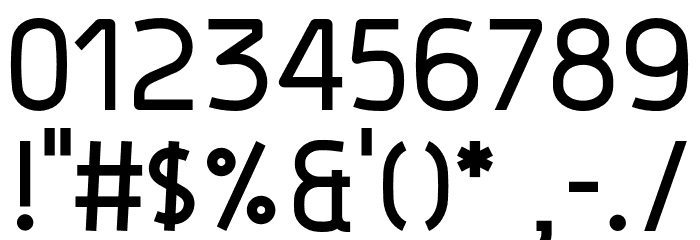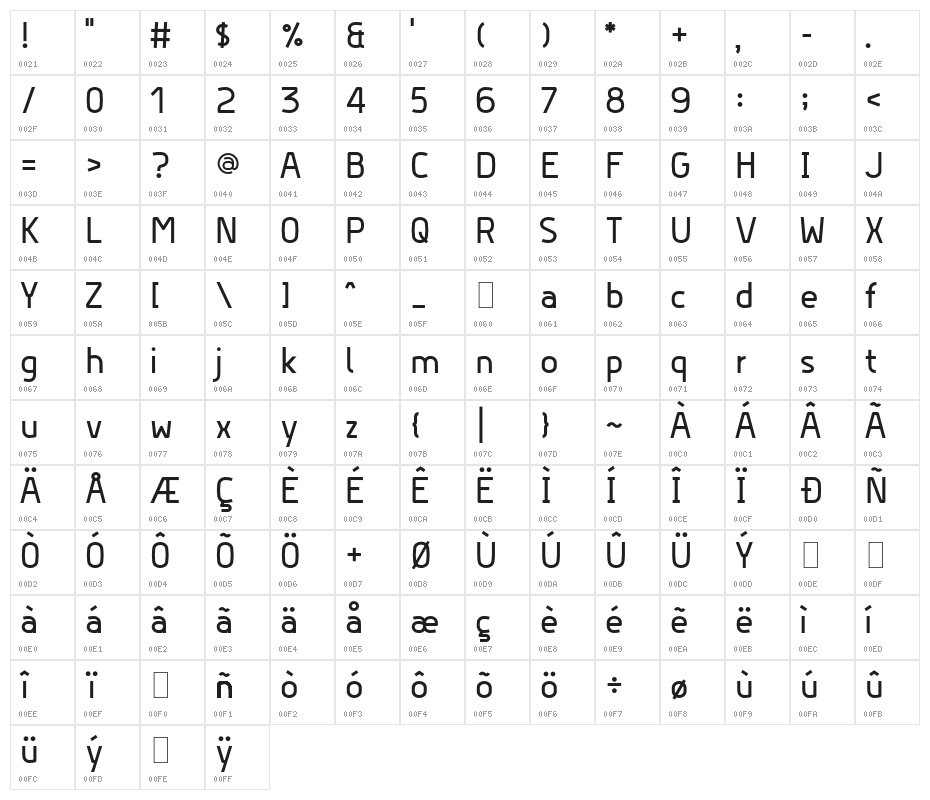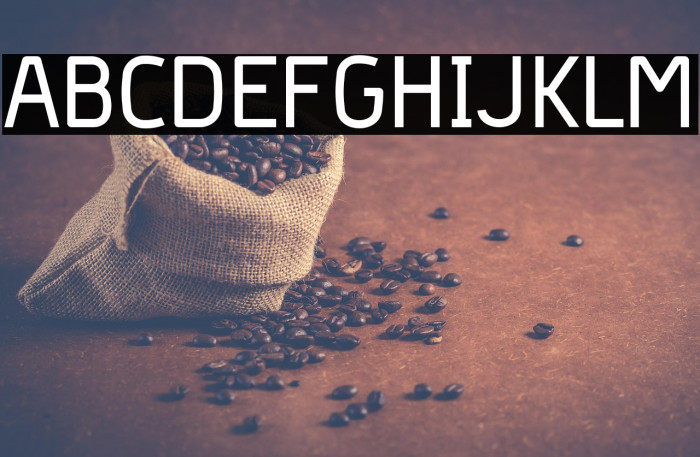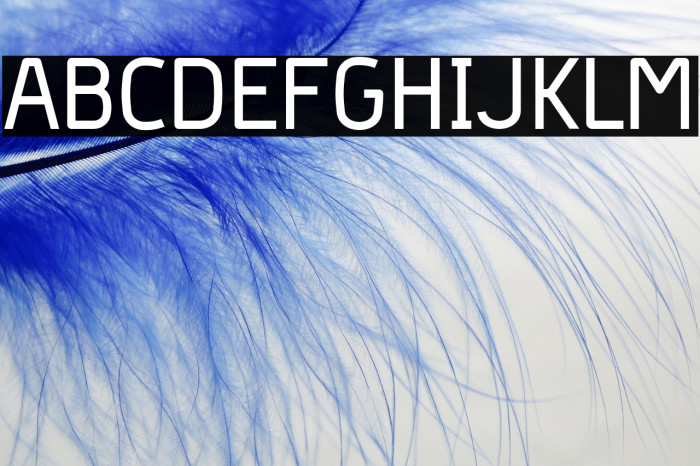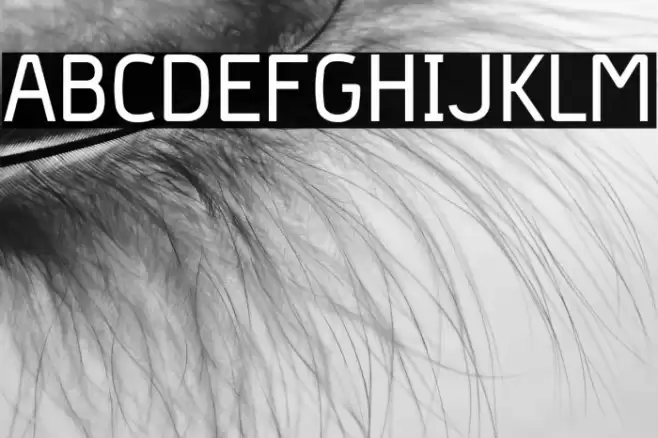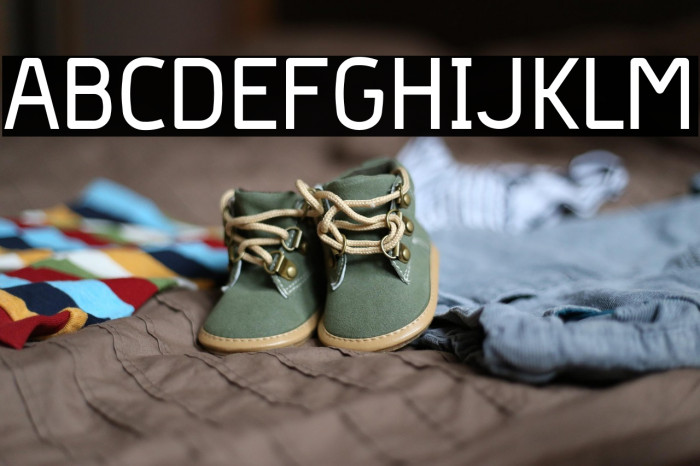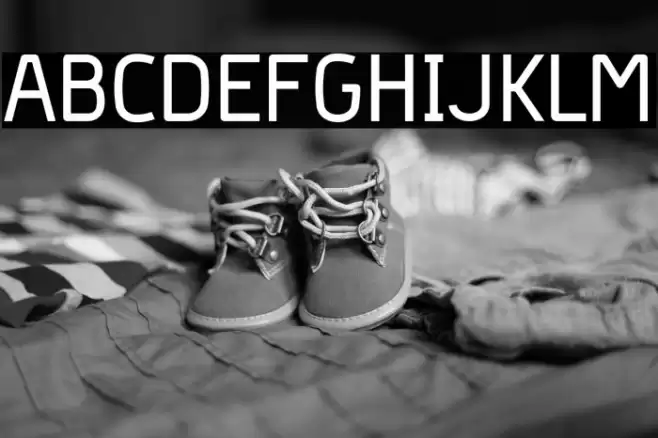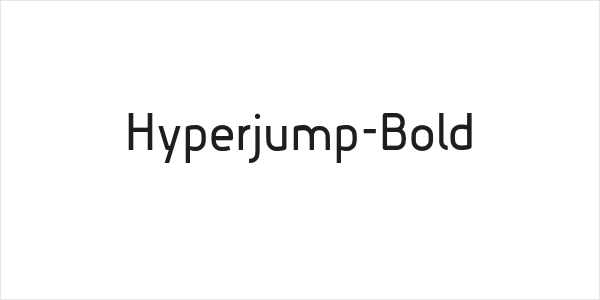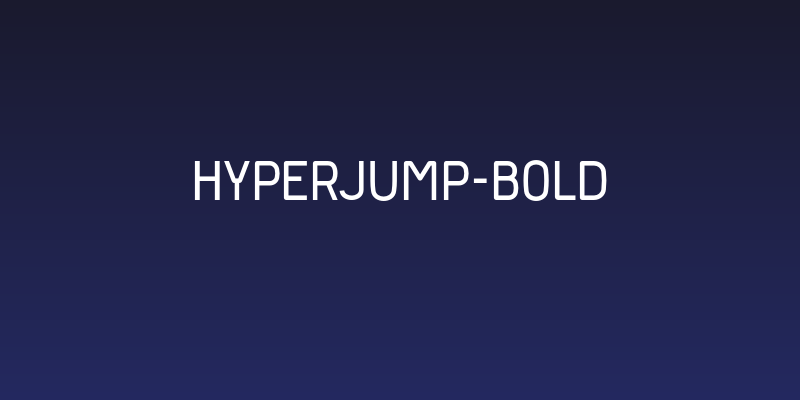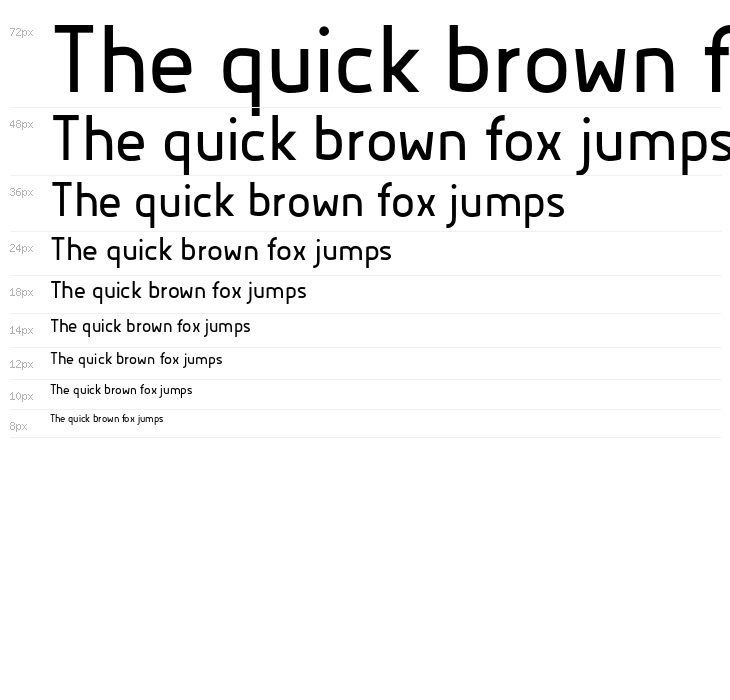
Hyperjump-Bold Font
Hyperjump-Bold Description
This font features a modern and clean sans-serif style with a bold weight, making it highly legible and impactful. The characters are uniformly structured with a consistent stroke width, providing a balanced and cohesive appearance. The uppercase and lowercase letters maintain a geometric form, while the numerals are clear and straightforward. Special characters are designed with simplicity, ensuring they complement the overall aesthetic. The font's design is versatile, suitable for various digital and print applications where clarity and modernity are desired.